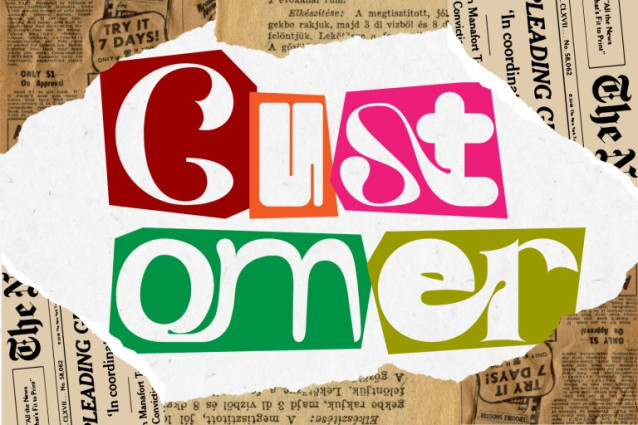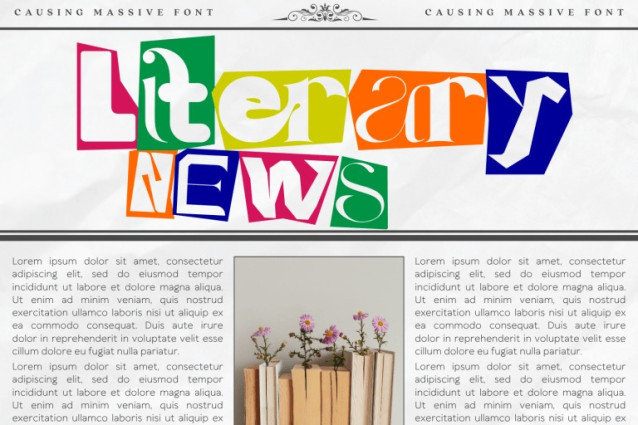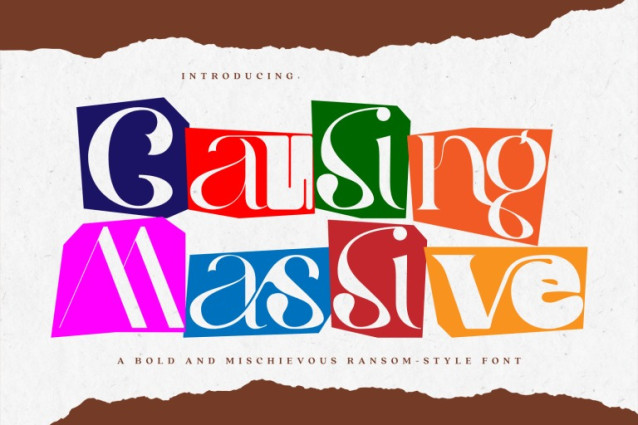
Causing Massive Font
Causing Massive – Paper-cut Font is a unique cut-paper serif display font inspired by handcrafted collage art and layered paper compositions. Each character feels like a carefully sliced paper shape, combining elegant high-contrast serif details with bold geometric cutout forms. The irregular angles, playful layout, and artistic paper-cut aesthetic give this typeface a strong visual identity that feels both modern and handmade. Causing Massive is perfect for editorial headlines, creative branding, art posters, packaging, album covers, and experimental typography projects.
Uppercase & Lowercase Letters
Around 100 Special Ligatures & Alternates
Accented Characters for multilingual support
🔤About 100 ligatures combined with Stylistic Alternates Font: